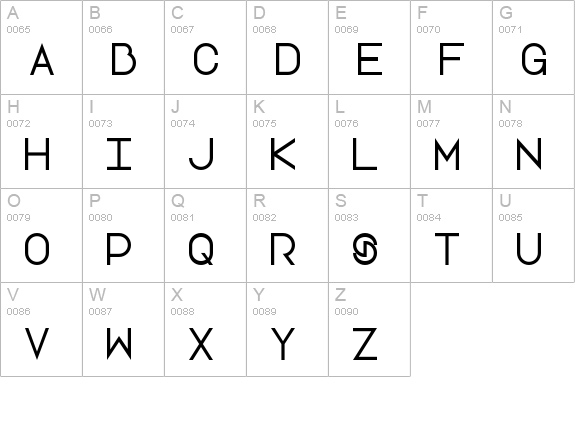
Lotte Paperfang Font Details
Lotte Paperfang font is a charming and whimsical typeface that exudes a playful and friendly vibe. Its unique design features quirky angles and delightful flourishes, making it perfect for adding a touch of fun to your projects. Whether you're working on a children's book, greeting cards, or branding materials, Lotte Paperfang will bring a sense of joy and creativity to your designs. Best of all, Lotte Paperfang font is available for free download at FontsMarket.com. This means you can easily access this delightful typeface and start using it in your projects without any cost. Don't miss out on the opportunity to add Lotte Paperfang to your font collection and bring a smile to your audience's faces with its playful charm.